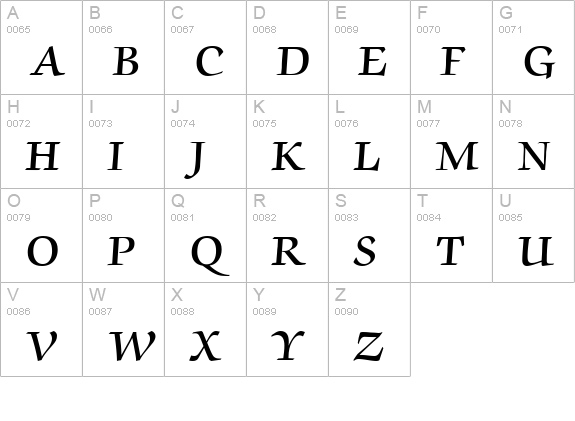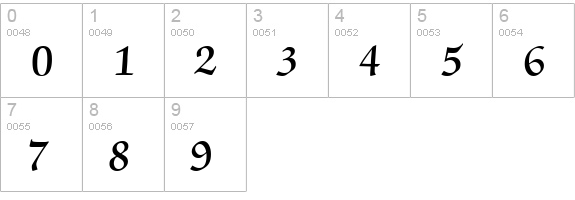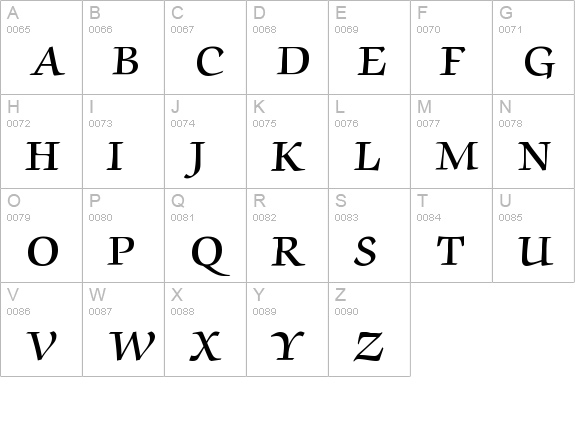
ZabriskieScript-Demi-Regular is a sub-bold, structured variant in the ZabriskieScript typeface family \xE2\x80\x94 well suited to sub-headlines and emphasised passages.
ZabriskieScript-Demi-Regular is a beautiful and elegant font that exudes sophistication and charm. With its delicate curves and stylish design, this font is perfect for adding a touch of class to any project. Whether you are creating invitations, logos, or any other type of design, ZabriskieScript-Demi-Regular is sure to make a statement. The best part? This stunning font is completely free to download at FontsMarket.com. You can easily add ZabriskieScript-Demi-Regular to your font collection and use it in your projects without any cost. Don't miss out on this fantastic opportunity to enhance your designs with this lovely font. Download ZabriskieScript-Demi-Regular today and let your creativity shine!